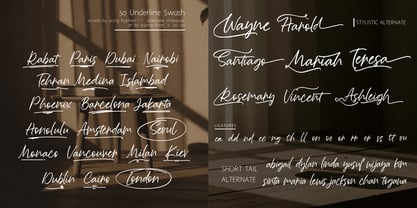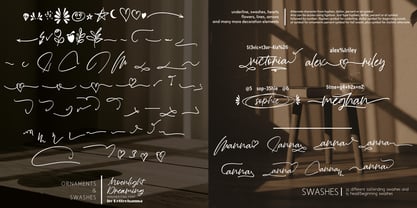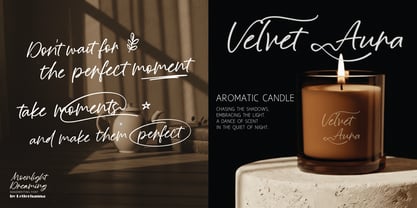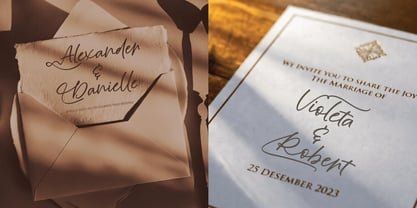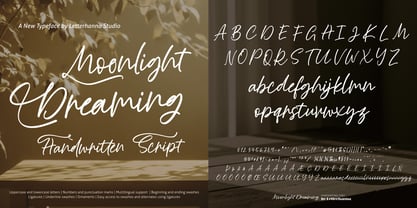
Moonlight Dreaming
by Letterhanna Studio
The Moonlight Dreaming Font Family was designed by Rinaldo Hasibuan and published by Letterhanna Studio. Moonlight Dreaming contains 1 styles. More about this family
Moonlight Dreaming was born in quiet hours— when the world slows down, and thoughts begin to wander. Each stroke flows like a whispered letter, written not to impress, but to feel. Soft curves, playful swashes, and endless alternates allow every word to find its own rhythm. This is not just handwriting. It’s a moment. A pause. A dream written in ink. Easy Access to Glyphs and Swashes Gain easy access to all alternate glyphs, swashes, ornaments, and underlines by simply using ligatures. Font Features Uppercase and lowercase letters Numbers and punctuation marks Multilingual support Ligatures Beginning and ending swashes Underline swashes Ornaments Easy access to swashes using ligatures
Designers: Rinaldo Hasibuan
Foundry: Letterhanna Studio
Letterhanna Studio is an independent type foundry from Yogyakarta, Indonesia, crafting original fonts since 2021. We specialize in expressive display typefaces and handwritten scripts — fonts with genuine personality and human warmth. With 100+ typefaces available. We serve designers and creators around the world. At Letterhanna, every letter is designed with purpose — because great typography tells a story before a single word is read.